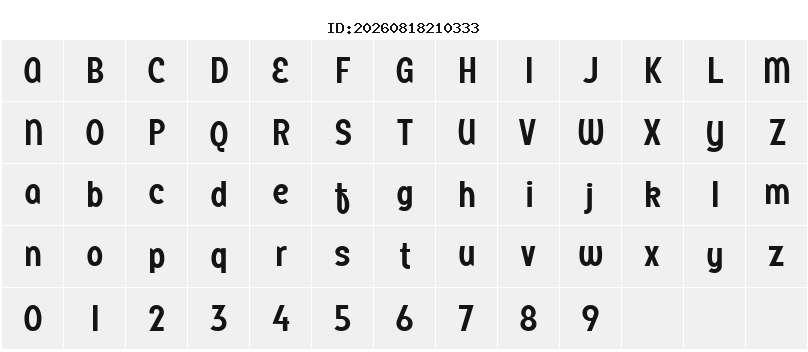
SisterMedium Preview
• Font Name: SisterMedium
• Full Font Name: SisterMedium-Regular
• PostScript Name: SisterMedium-Regular
• Copyright: © 1995 Gareth Hague
• Manufacturer: Gareth Hague
About SisterMedium.ttf
SisterMedium.ttf is a modern, elegant sans-serif font designed for ultimate readability and visual harmony. Perfect for branding, headlines, web design, and print materials.